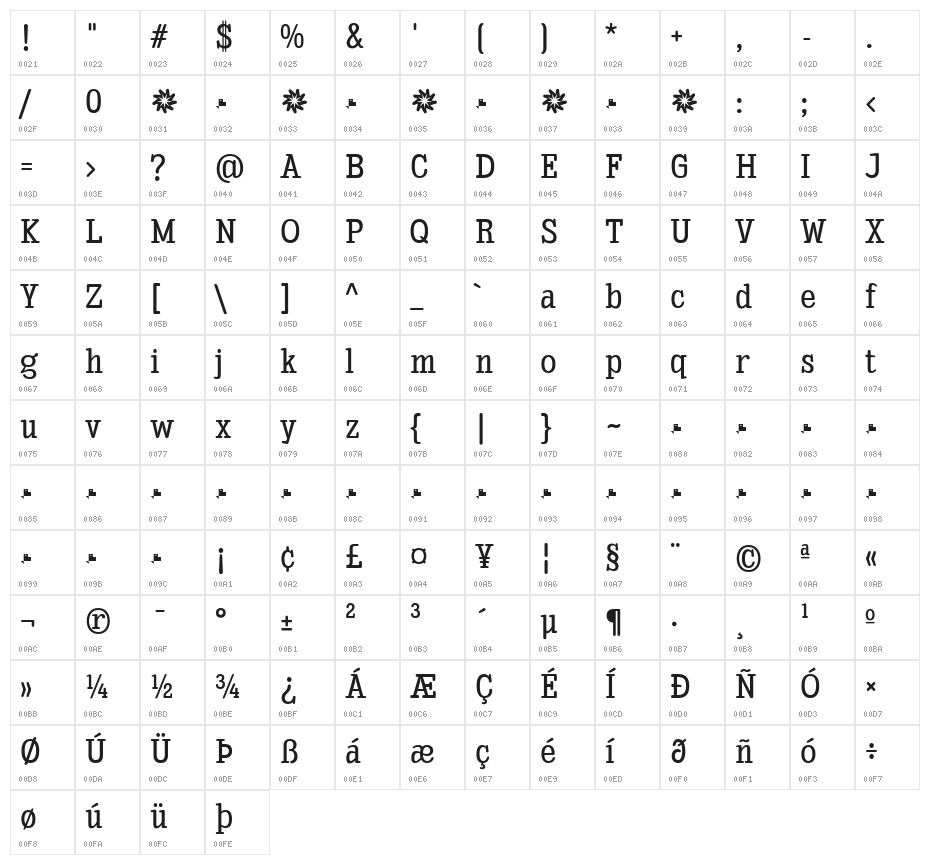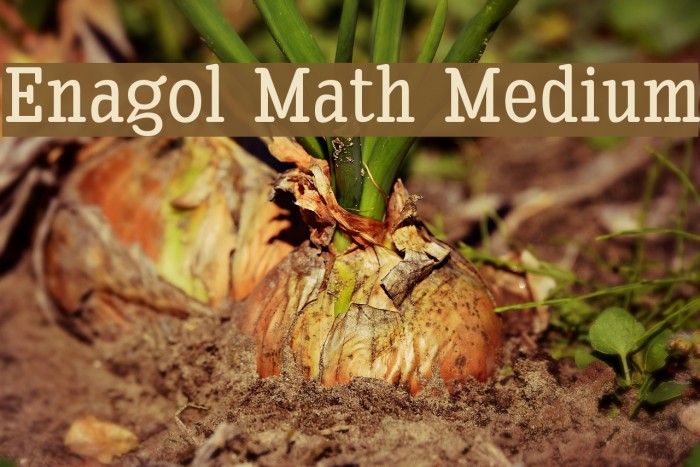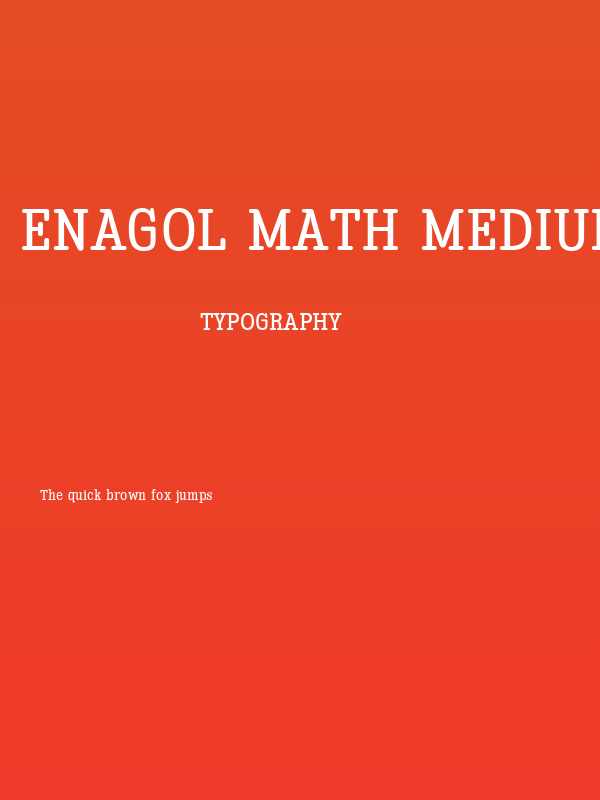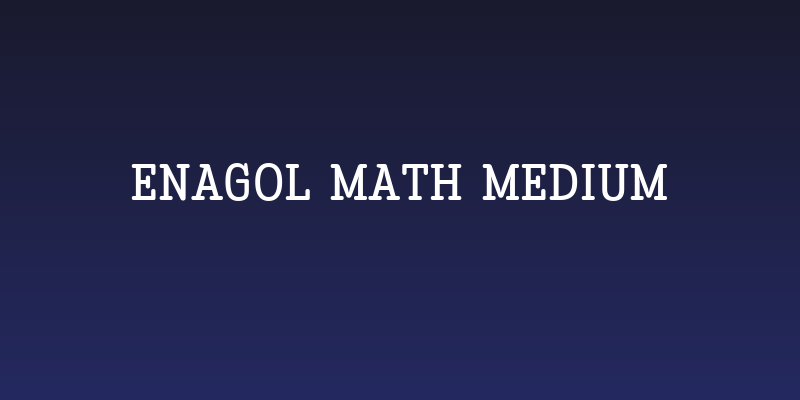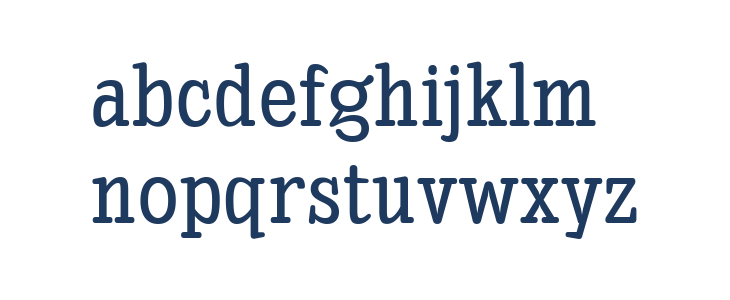
Enagol Math Medium Font
Enagol Math Medium Description
This font features a classic serif style with a modern twist, characterized by its bold and robust letterforms. The uppercase letters are strong and authoritative, while the lowercase letters maintain a consistent rhythm and balance. The numerals are clear and easily distinguishable, making them suitable for a variety of applications. Special characters are well-integrated, adding to the font's versatility. The overall design is clean and professional, making it ideal for both print and digital media.
| Proposed Projects | Ideal for editorial design, book covers, branding, and corporate materials. |